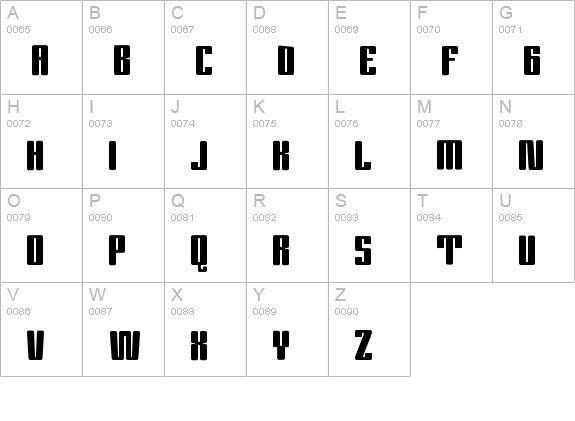
Calpina is a demo font in the Modern > Futuristic category, designed by craftsupplyco. It has been downloaded 76 times and is available for Windows, Mac and Linux.
Calpina font is a beautiful and elegant typeface that exudes sophistication and style. With its sleek and modern design, Calpina is perfect for a wide range of design projects, from branding to editorial design. The clean lines and sharp angles of this font make it stand out and grab attention, while its versatility allows it to be used in various contexts.